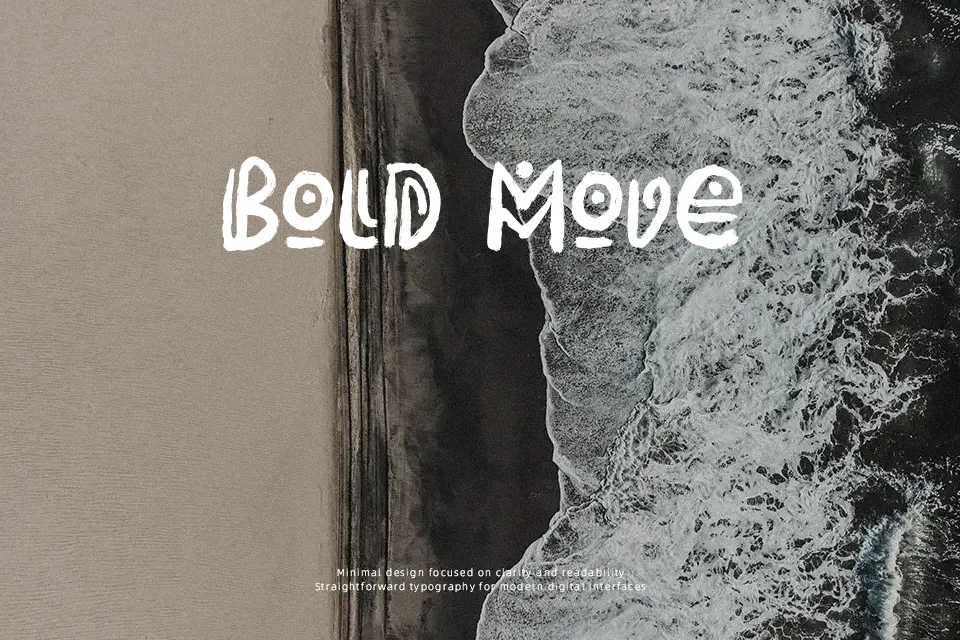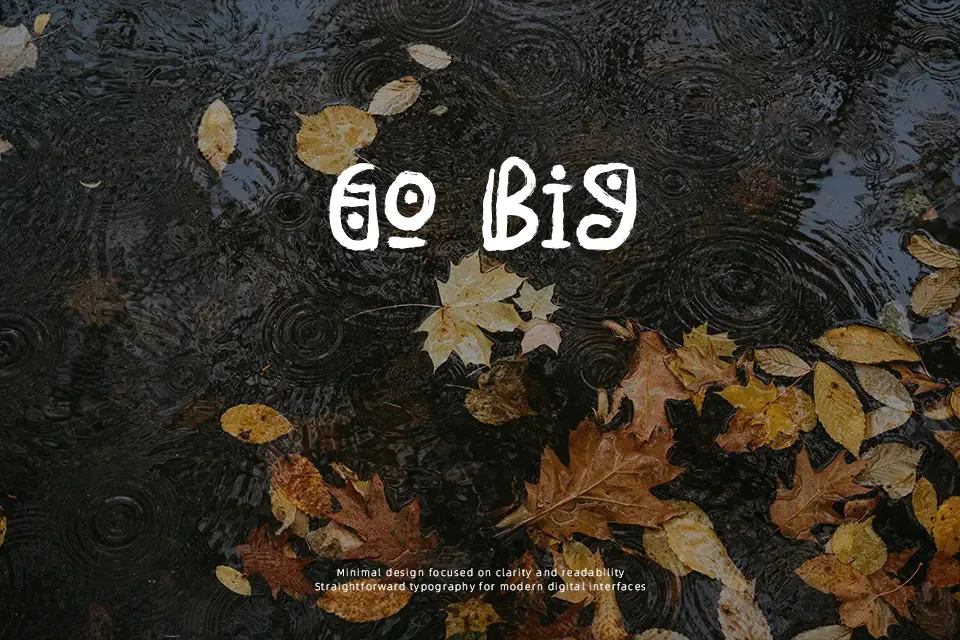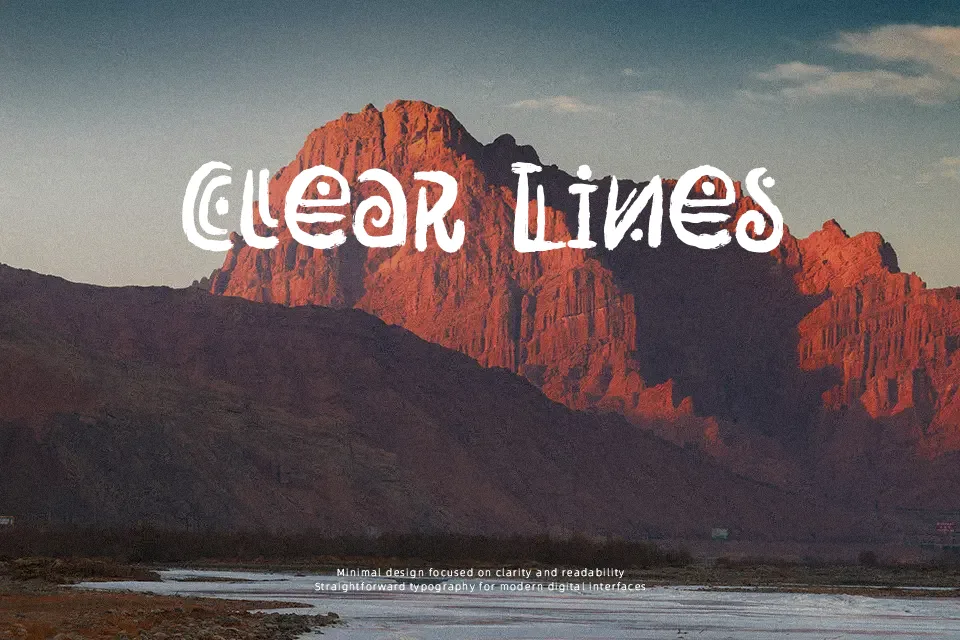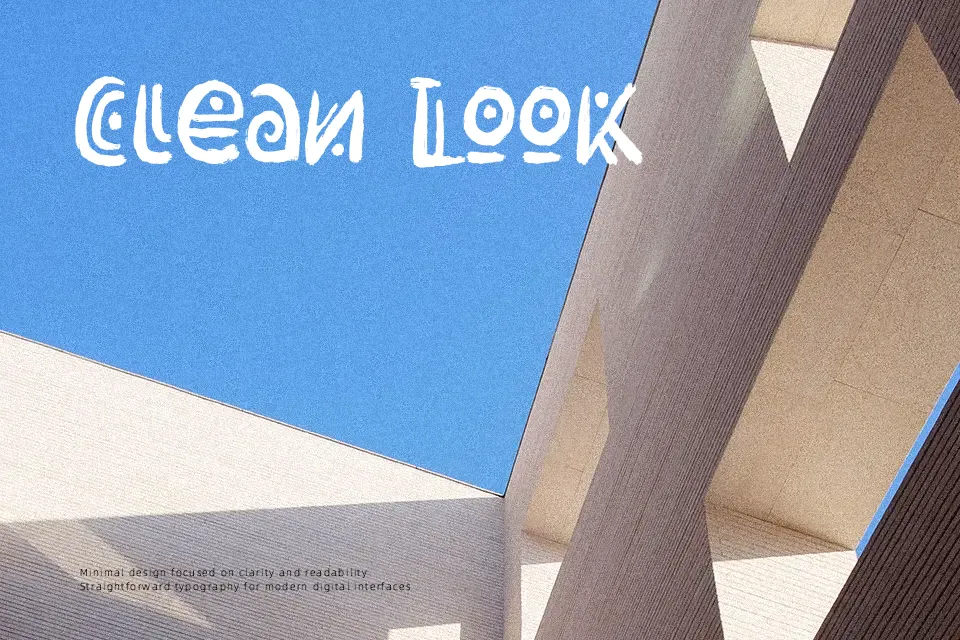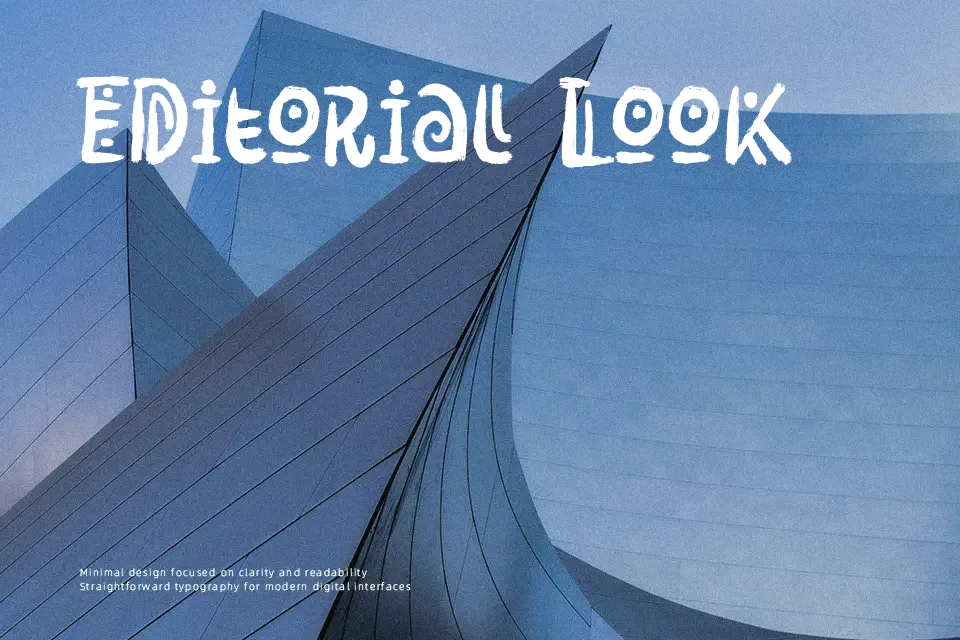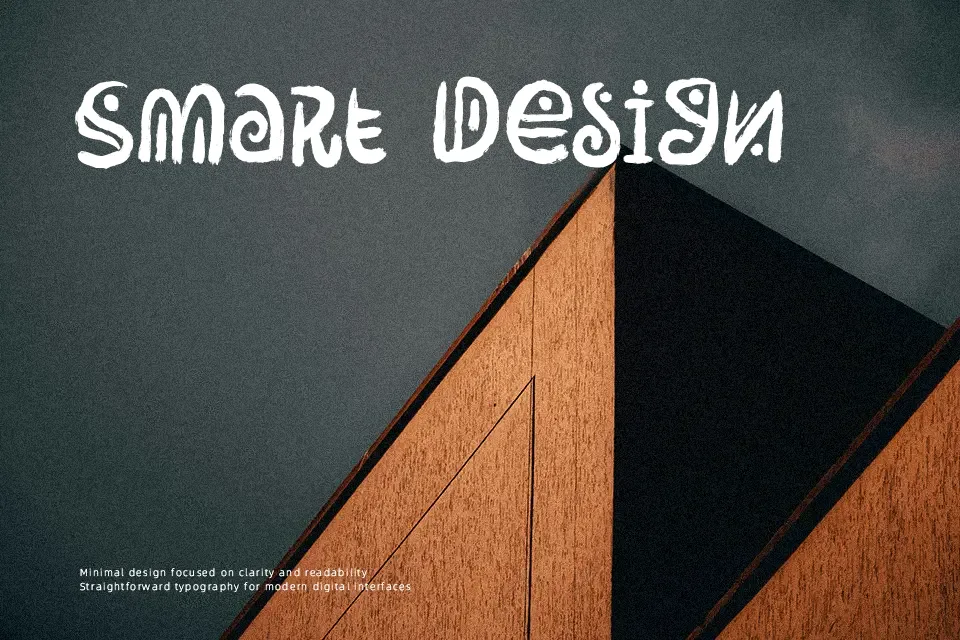
Rimba Andalas Font
A short product label or poster headline benefits greatly from the organic, hand-crafted energy of Rimba Andalas Font. This striking display typeface features irregular stroke weights, rough edges, and a dynamic baseline that mimics natural handwriting or brush techniques. The spacing is relatively loose to accommodate the textured letterforms, ensuring that each character retains its artistic impact at larger proportions. While the bold, uneven strokes improve visibility in striking focal points like festival branding or outdoor packaging, these same decorative details become less effective at smaller sizes. Dense forms reduce comfort during extended reading, making this design far less suitable for long paragraphs or body text.
tropical product packaging
organic coffee branding
event hero headlines
Perfect for branding, headline, and packaging, with a artistic and decorative style.